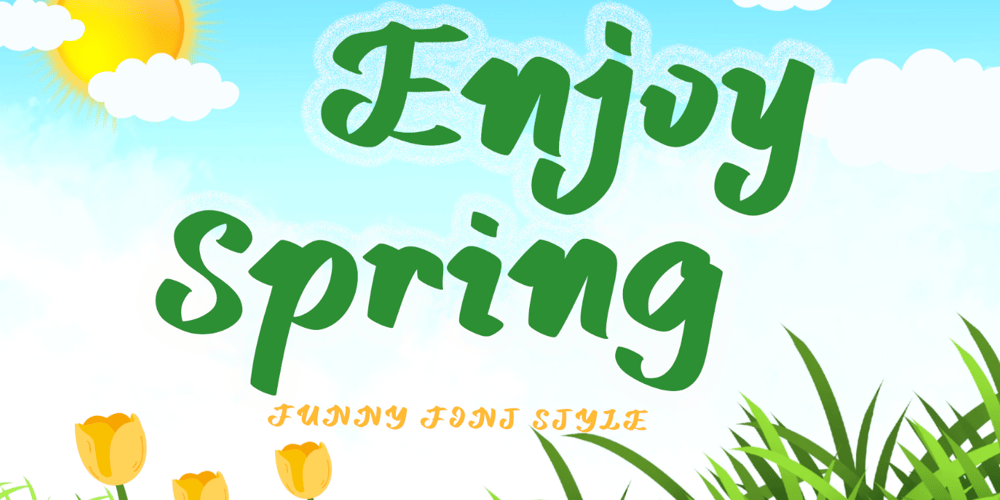
Enjoy Spring Font Family was designed by Isroni Yoga Prasetya and published by Yoga Letter. Enjoy Spring contains 1 styles and family package options. “Enjoy Spring” is a unique and beautiful display font. This font is equipped with uppercase, lowercase, numerals, punctuations and multilingual support. It is very suitable for use in spring, summer, holiday, easter, birthday, invitations, print, branding, sticker, wedding, photography and others.